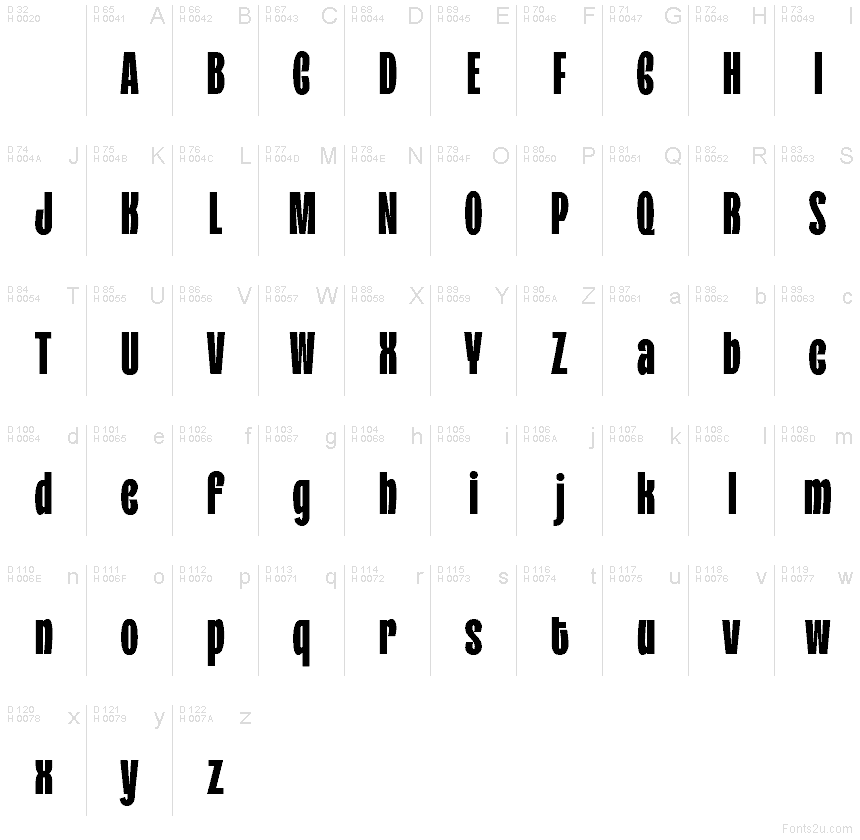
CS Roland Regular Demo
CS Roland font by Craft Supply Co. is a free bold condensed sans serif display font. Built for tight spaces, it packs serious impact into narrow columns with thick, blocky verticals and tight, inky counters. The rhythm is punchy and upright, with blunt terminals that read loud and clean at a glance—great when you need maximum weight without sprawling line lengths.
Using CS Roland, headlines lock up neatly and stay legible at aggressive sizes. This free font shines on posters, packaging panels, event flyers, thumbnails, magazine covers, and banner ads, where space is scarce but presence matters. Its compact proportions boost hierarchy instantly; add a touch of tracking for breath. Pair with a light geometric sans for body copy to balance its dense energy.